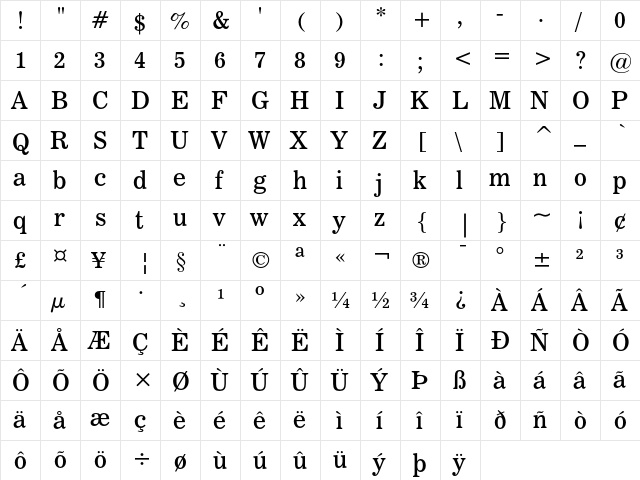
News 706 Regular Font Preview
News 706 Regular
Design Context for News 706 Typeface
News 706 takes a measured approach to typography — its balanced proportions and neutral character make it a reliable workhorse for both digital and print work.